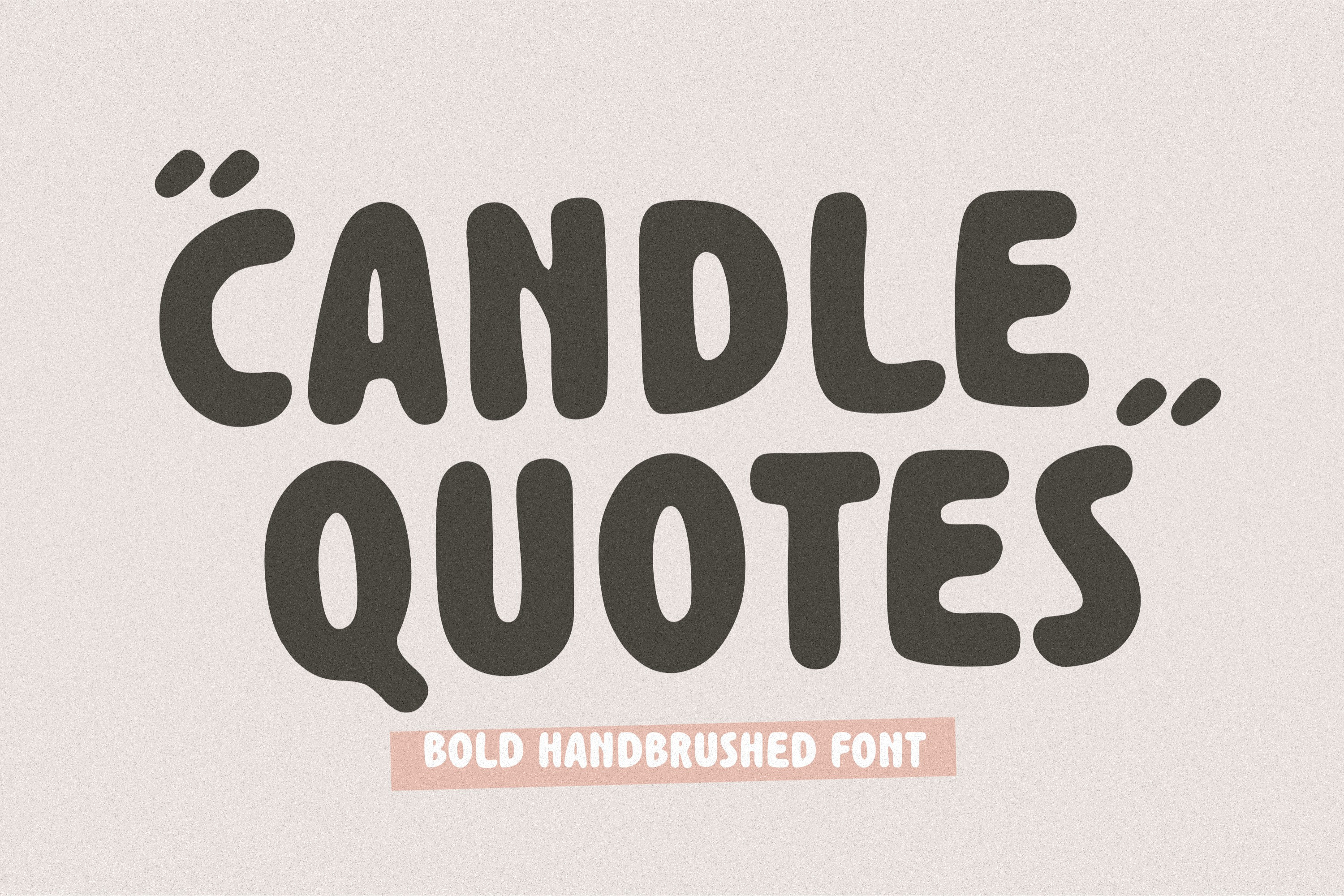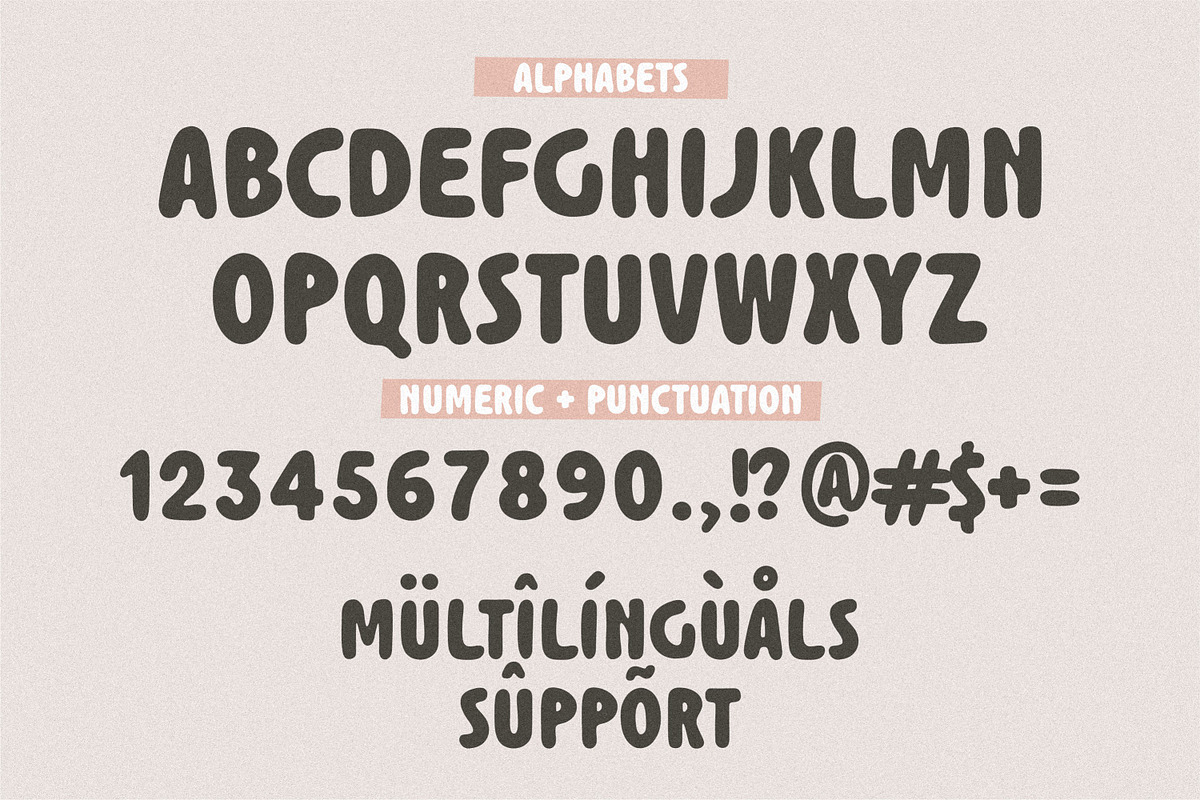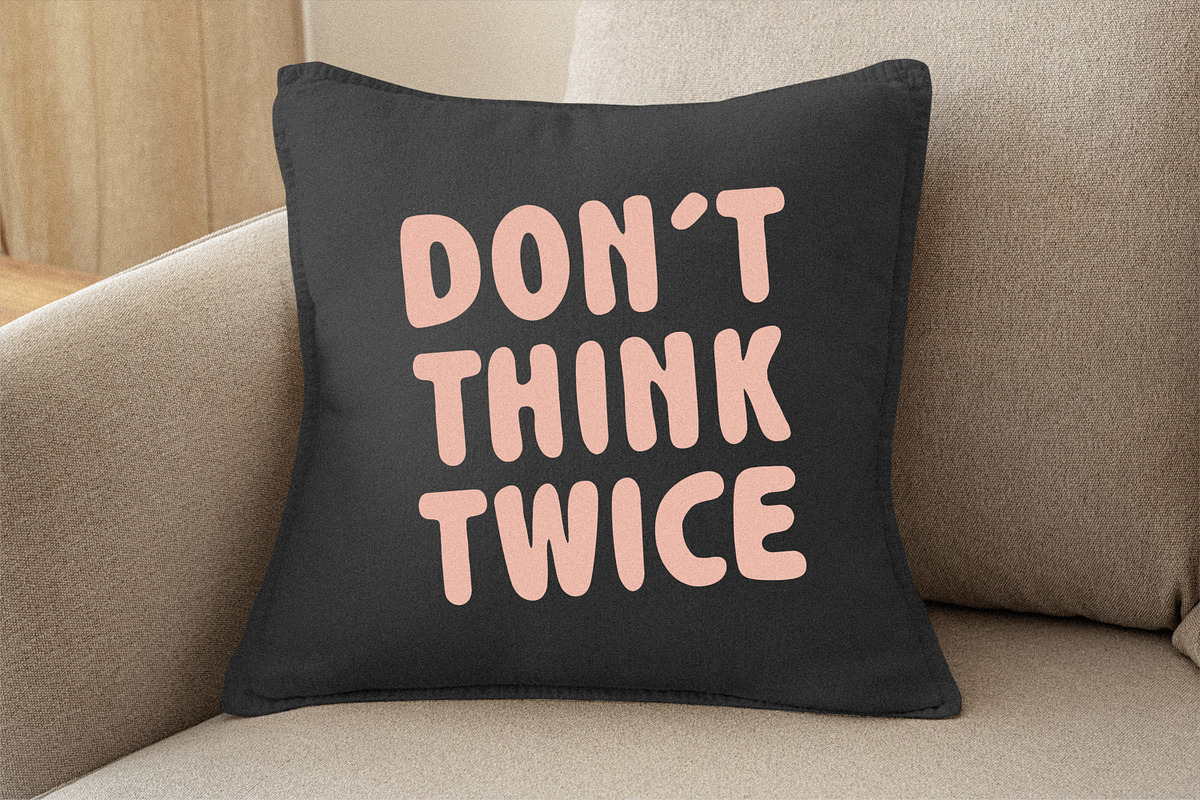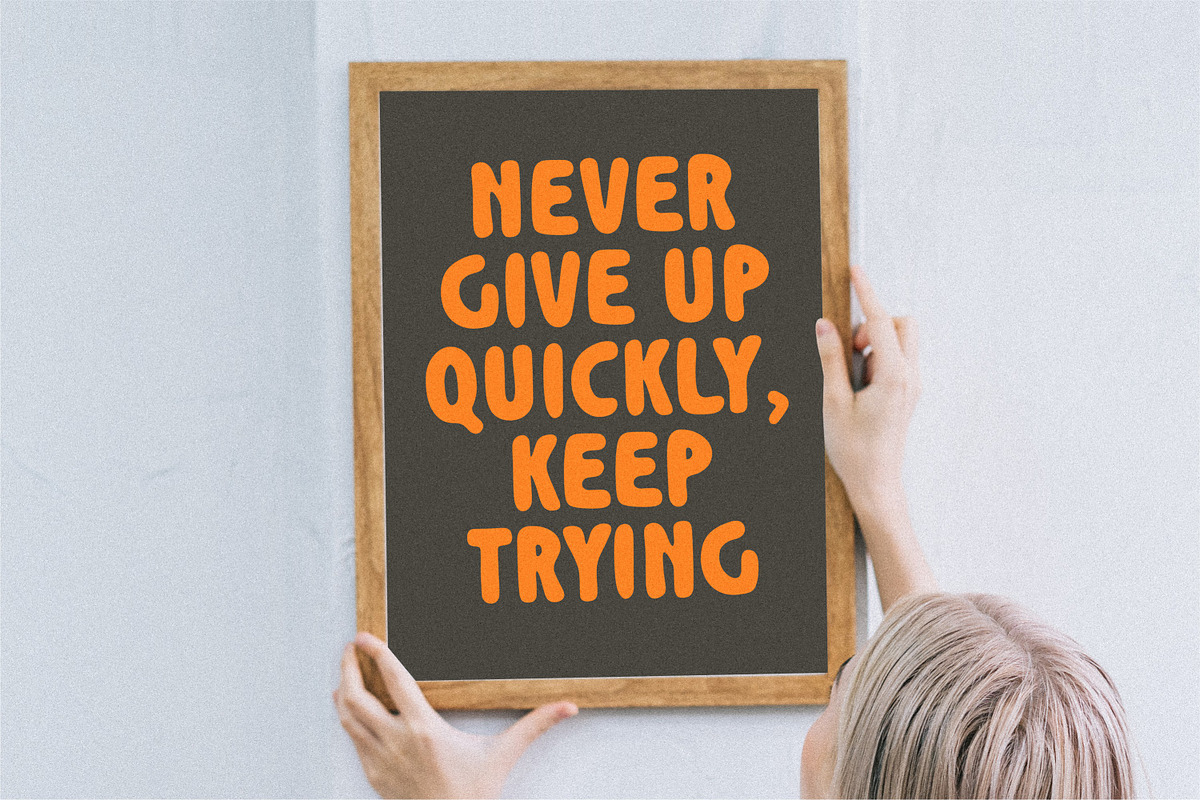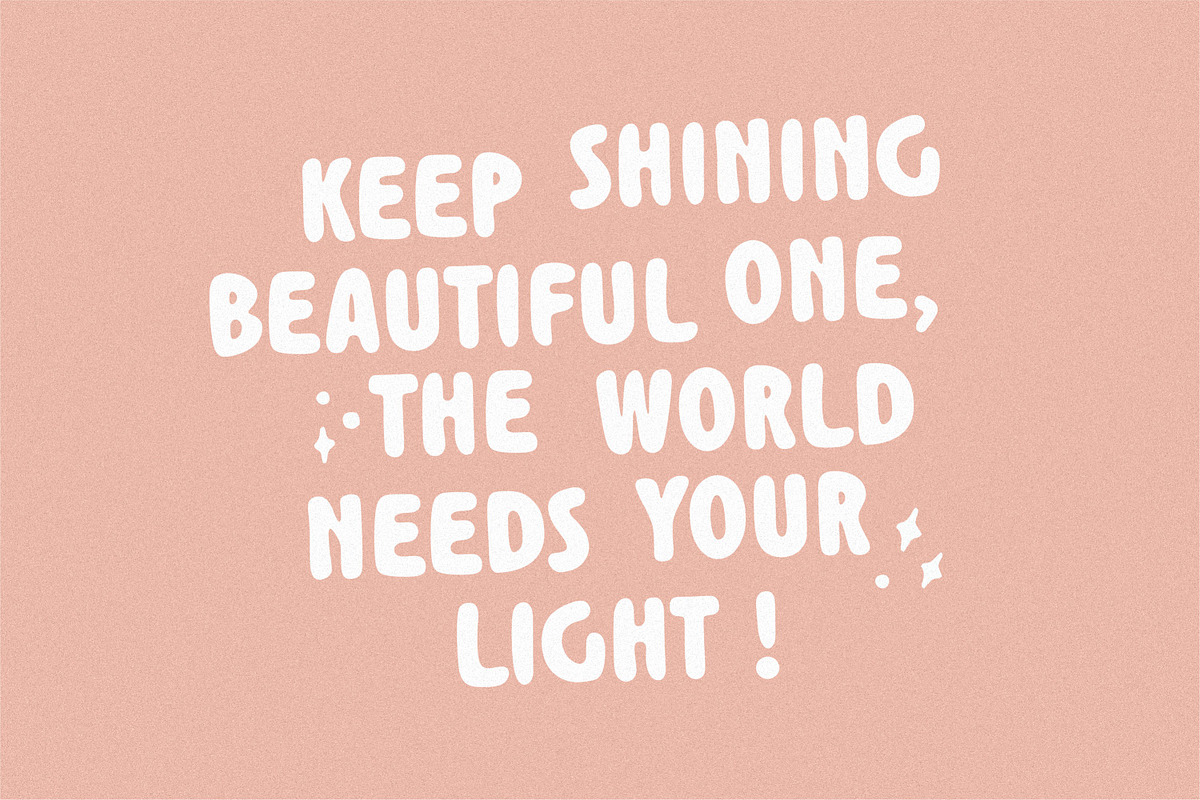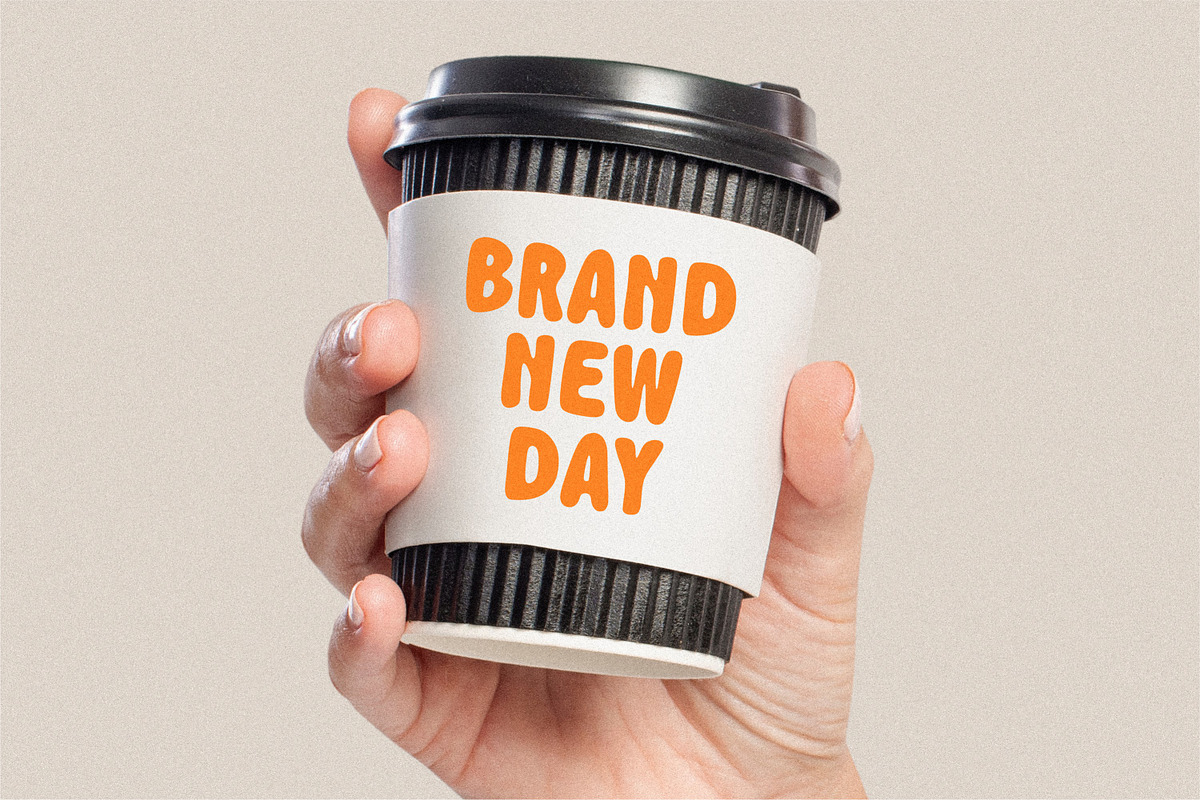
Candle Quotes Bold Handbrushed Font
Candle Quotes is a Bold Handbrushed Font.
This font is very suitable for writing quotes and notes. Apart from that, it can be used for logos, book covers, magazines, t-shirts, and others.
This font only has uppercase letters
- also multilingual support